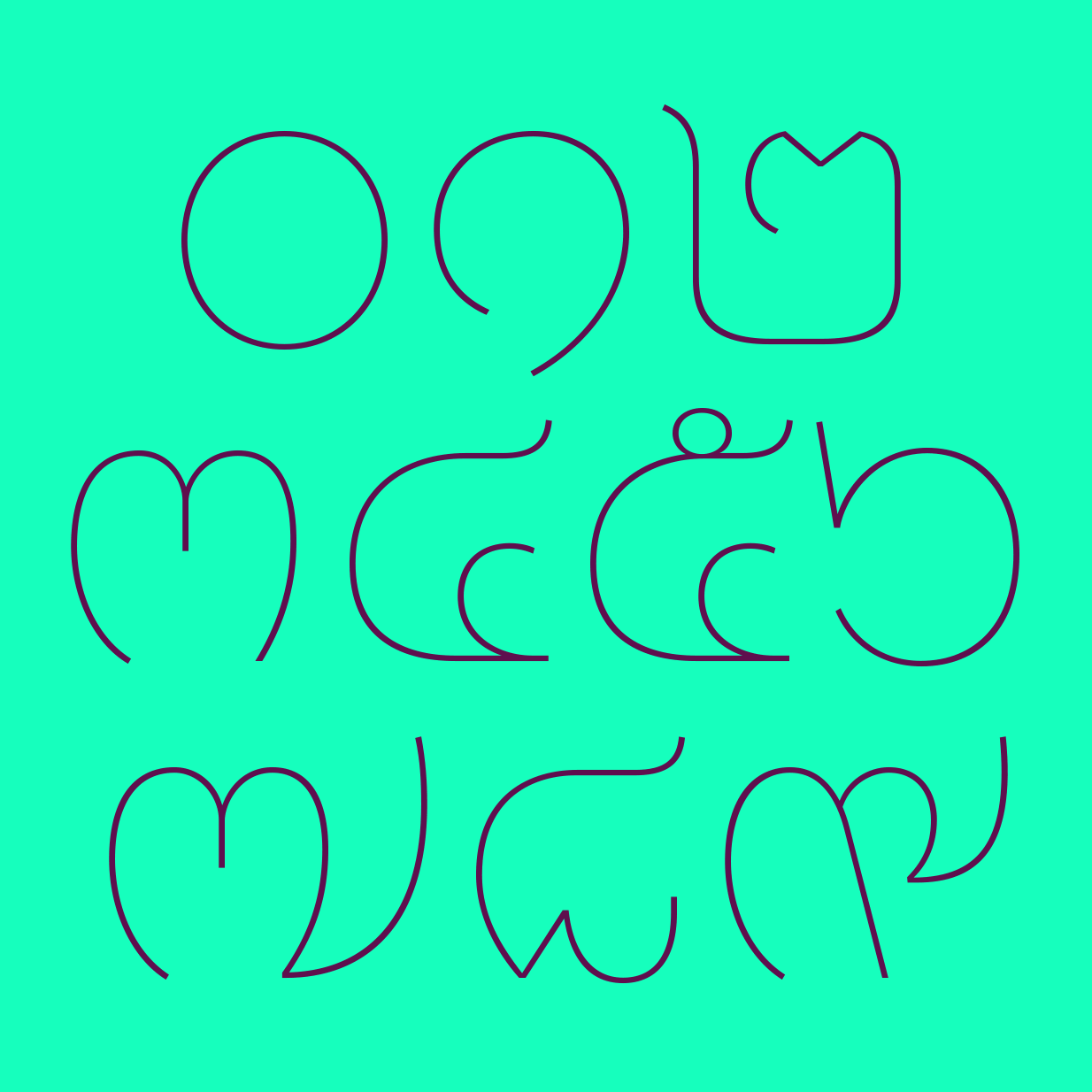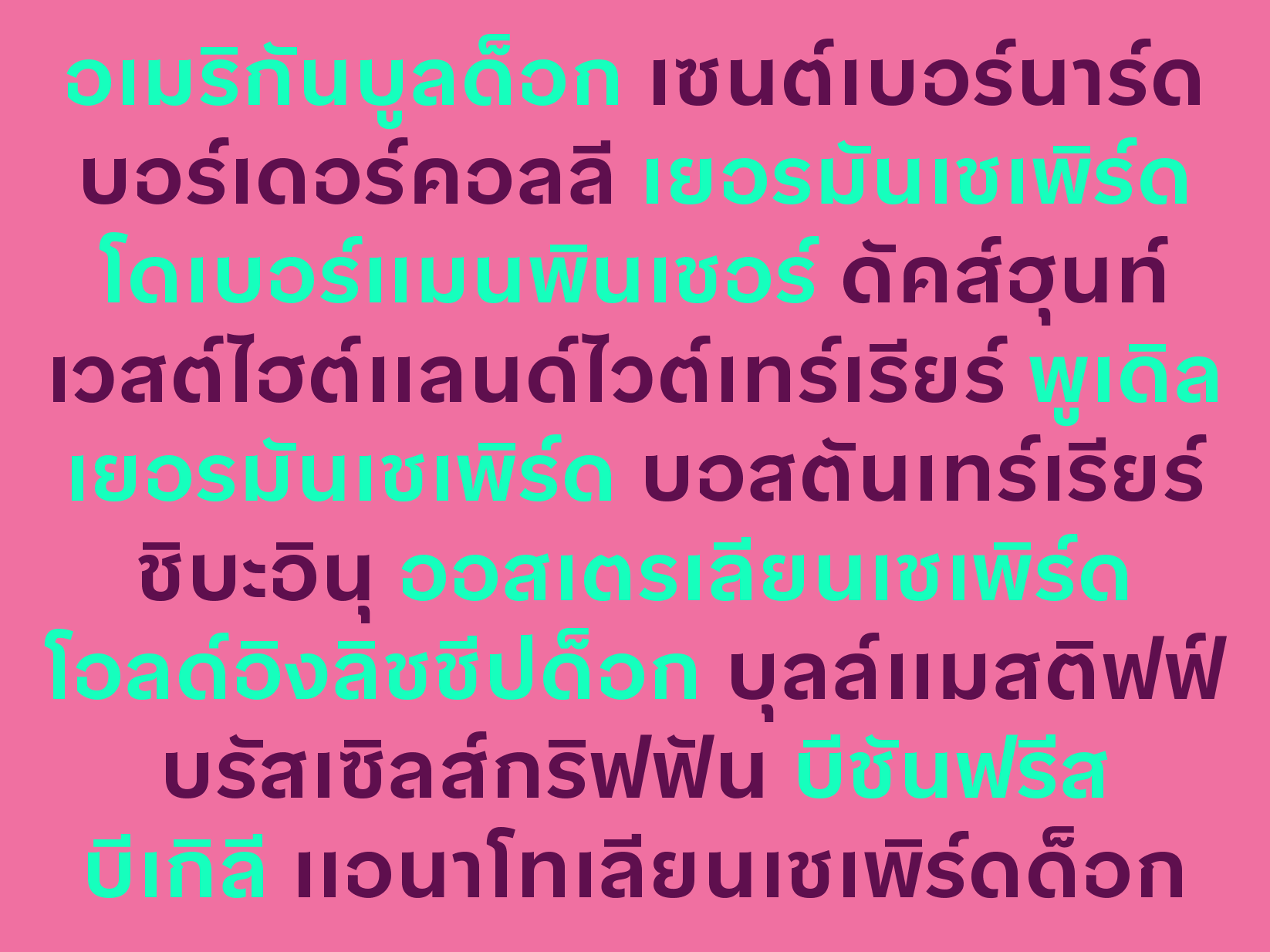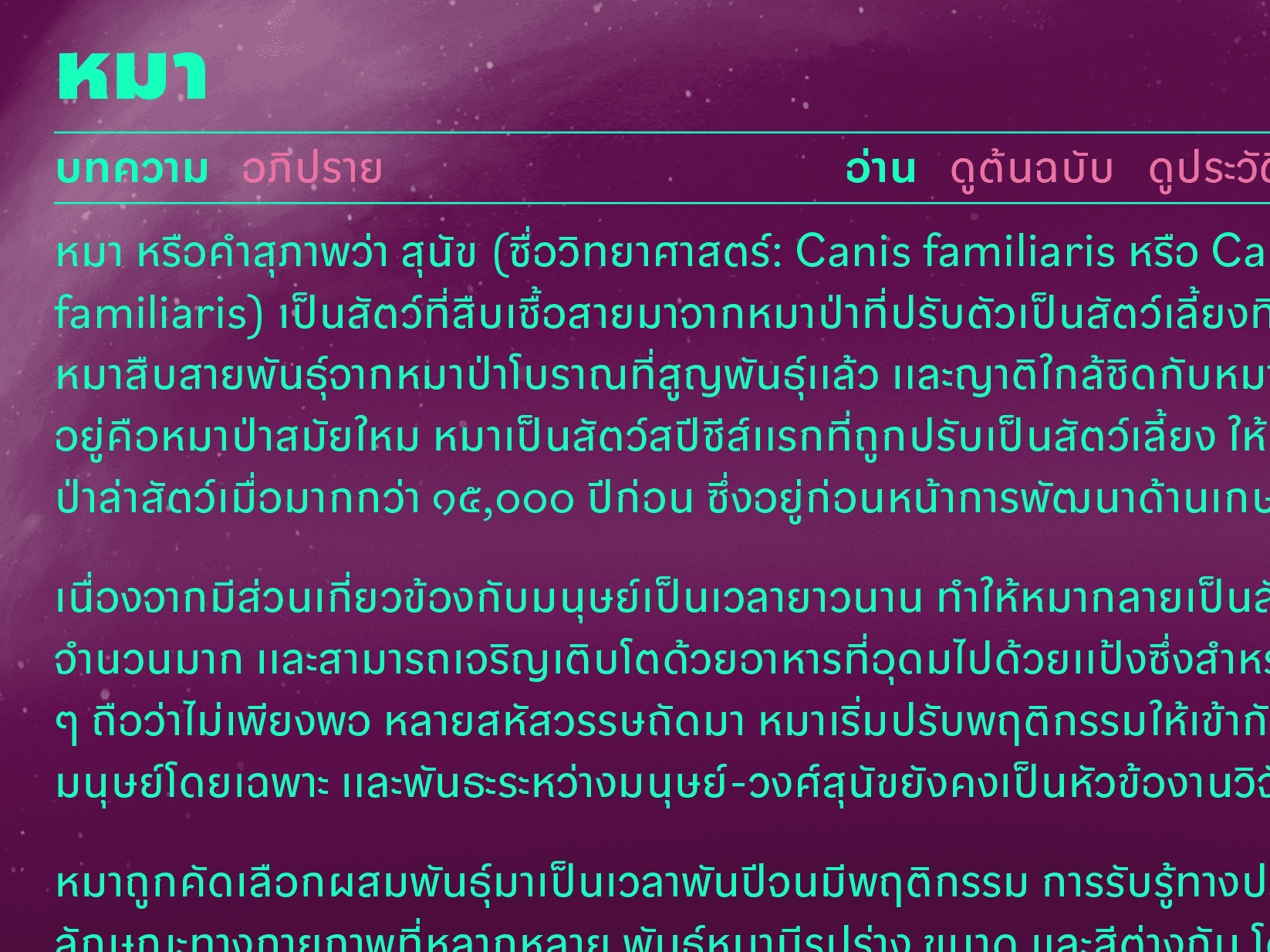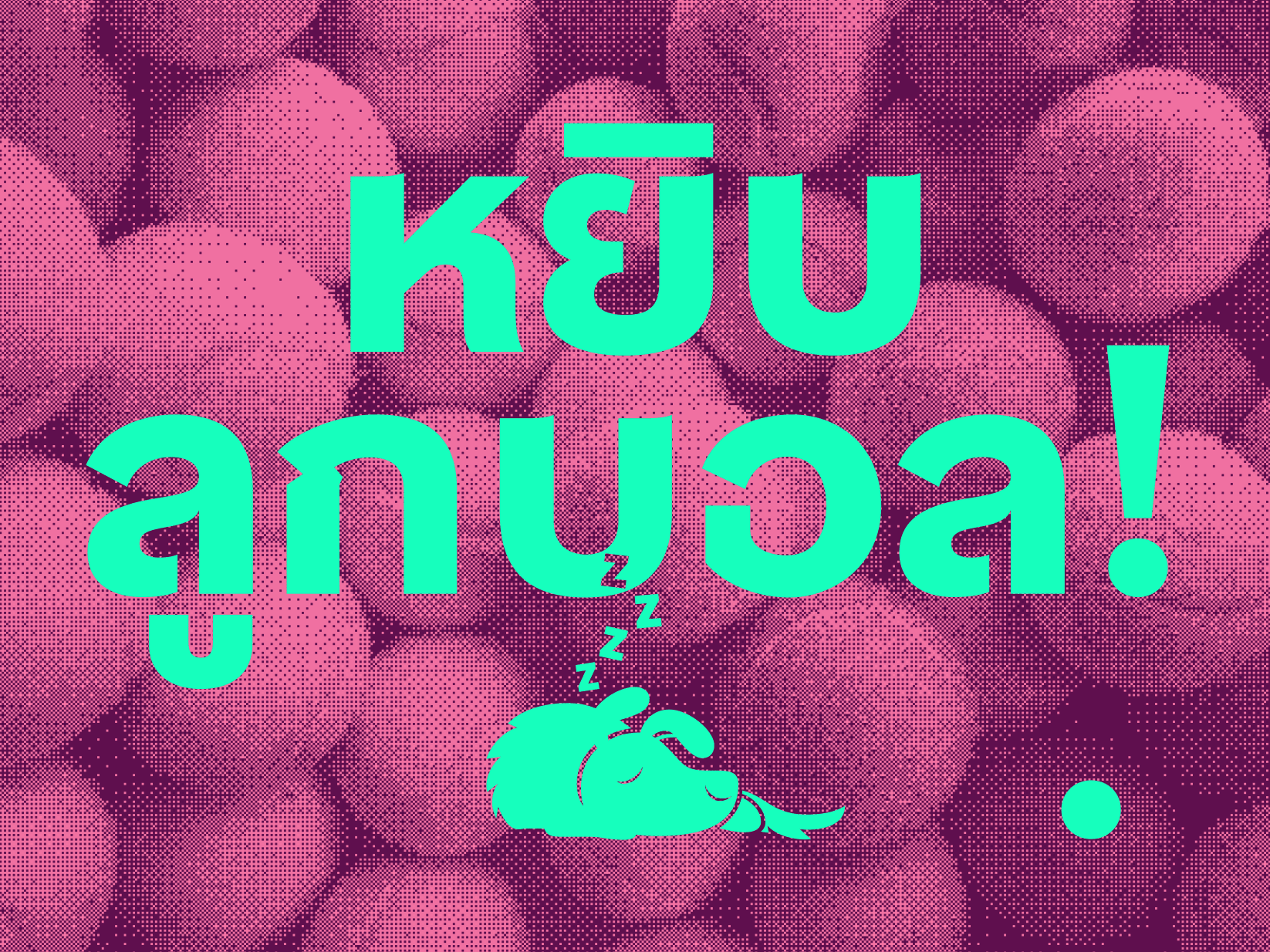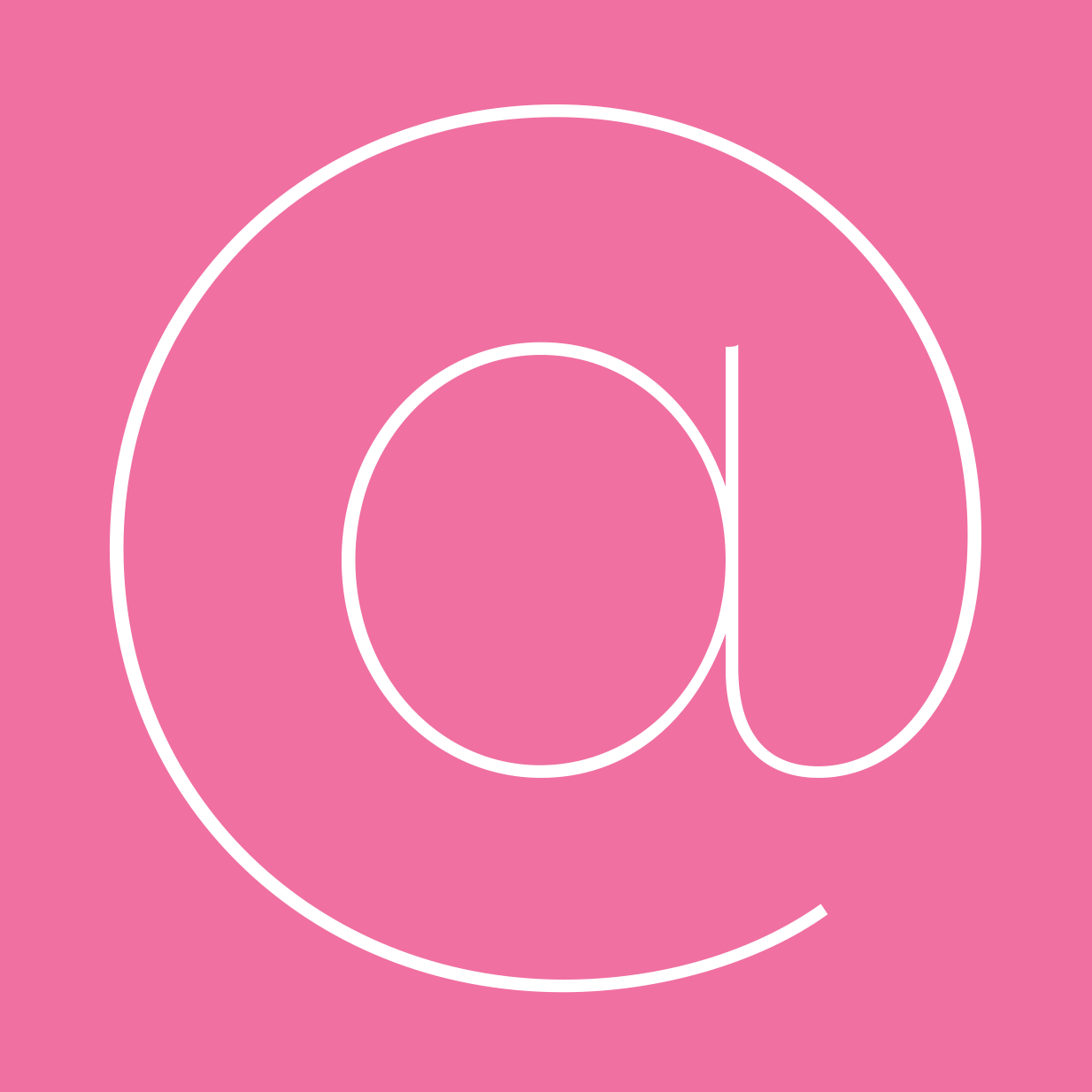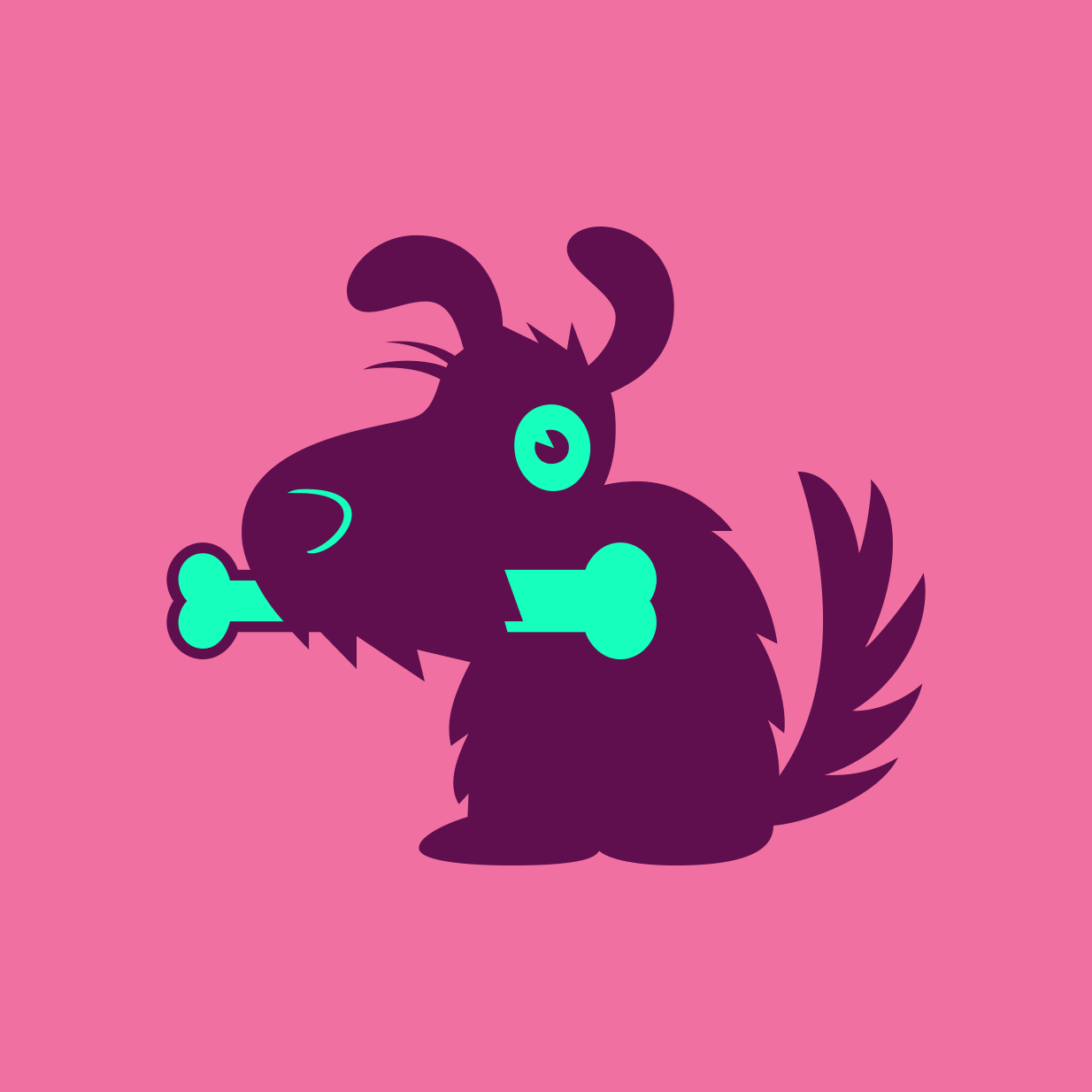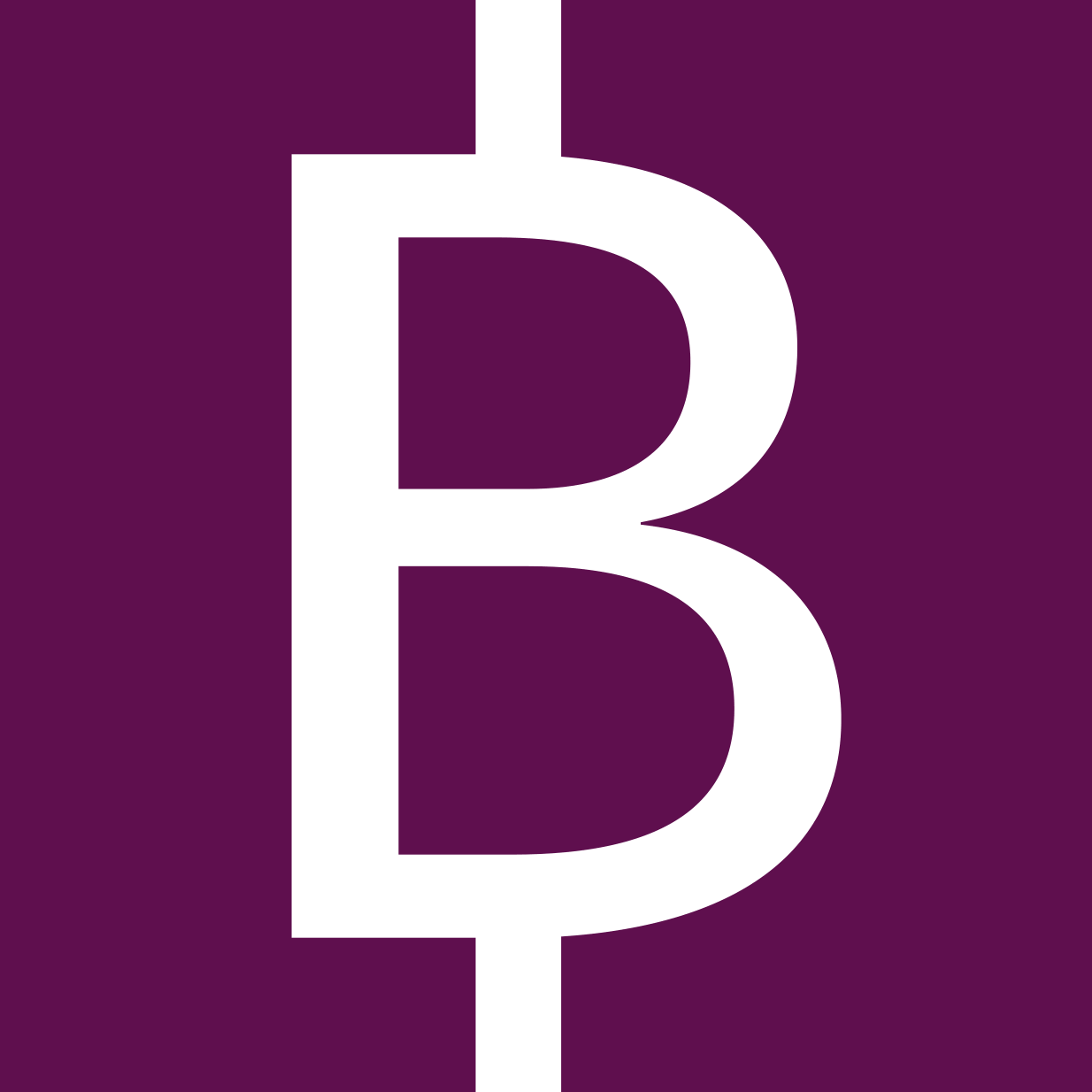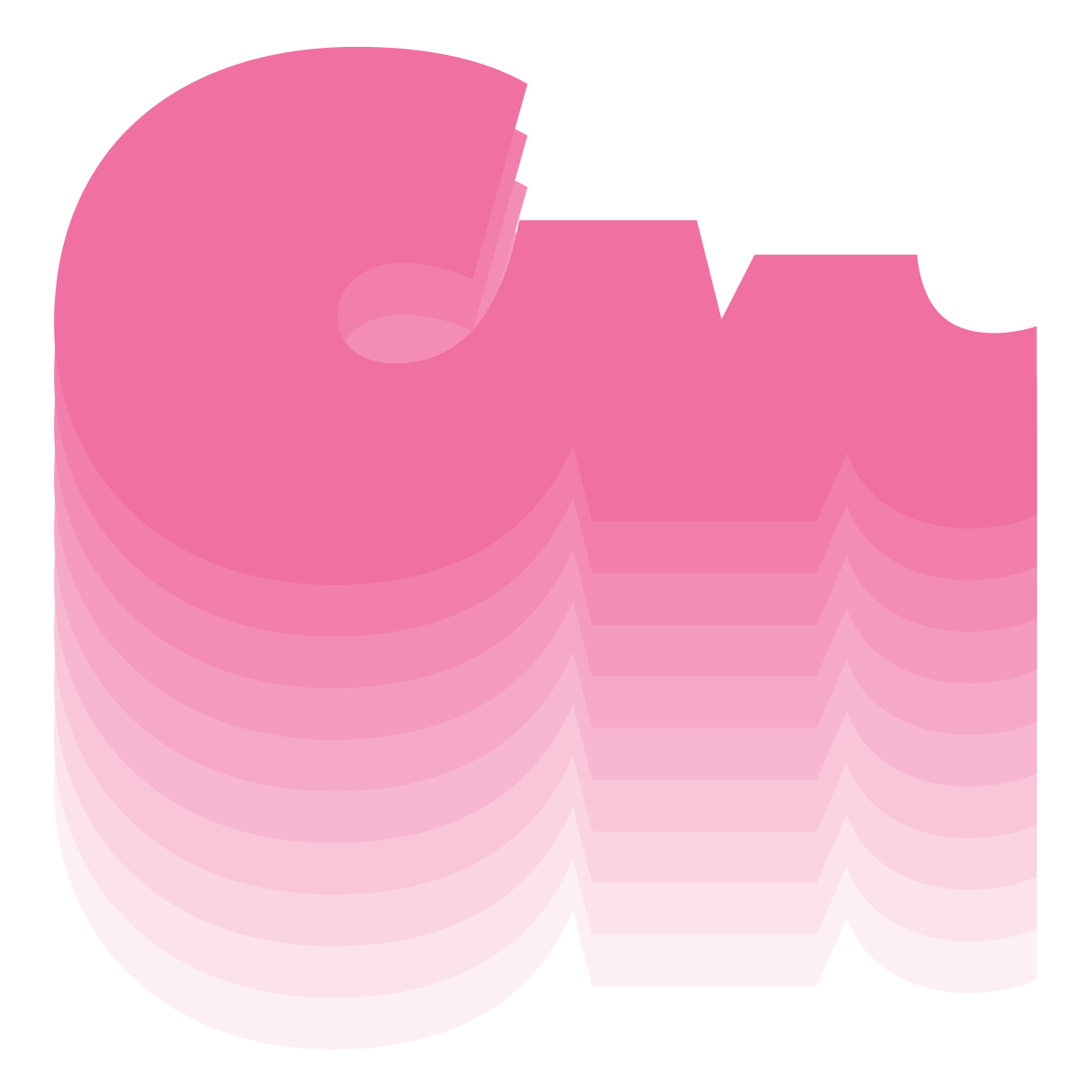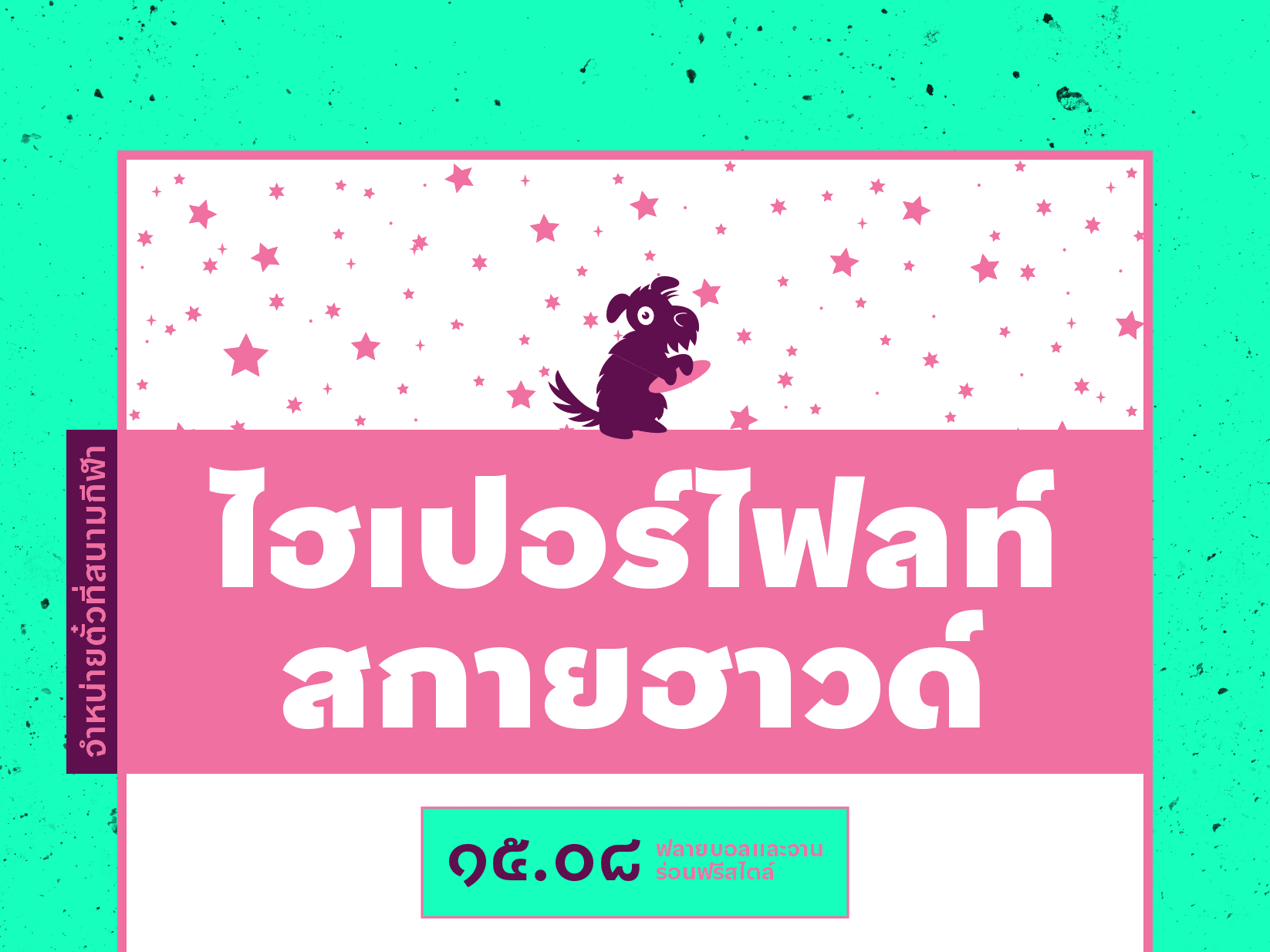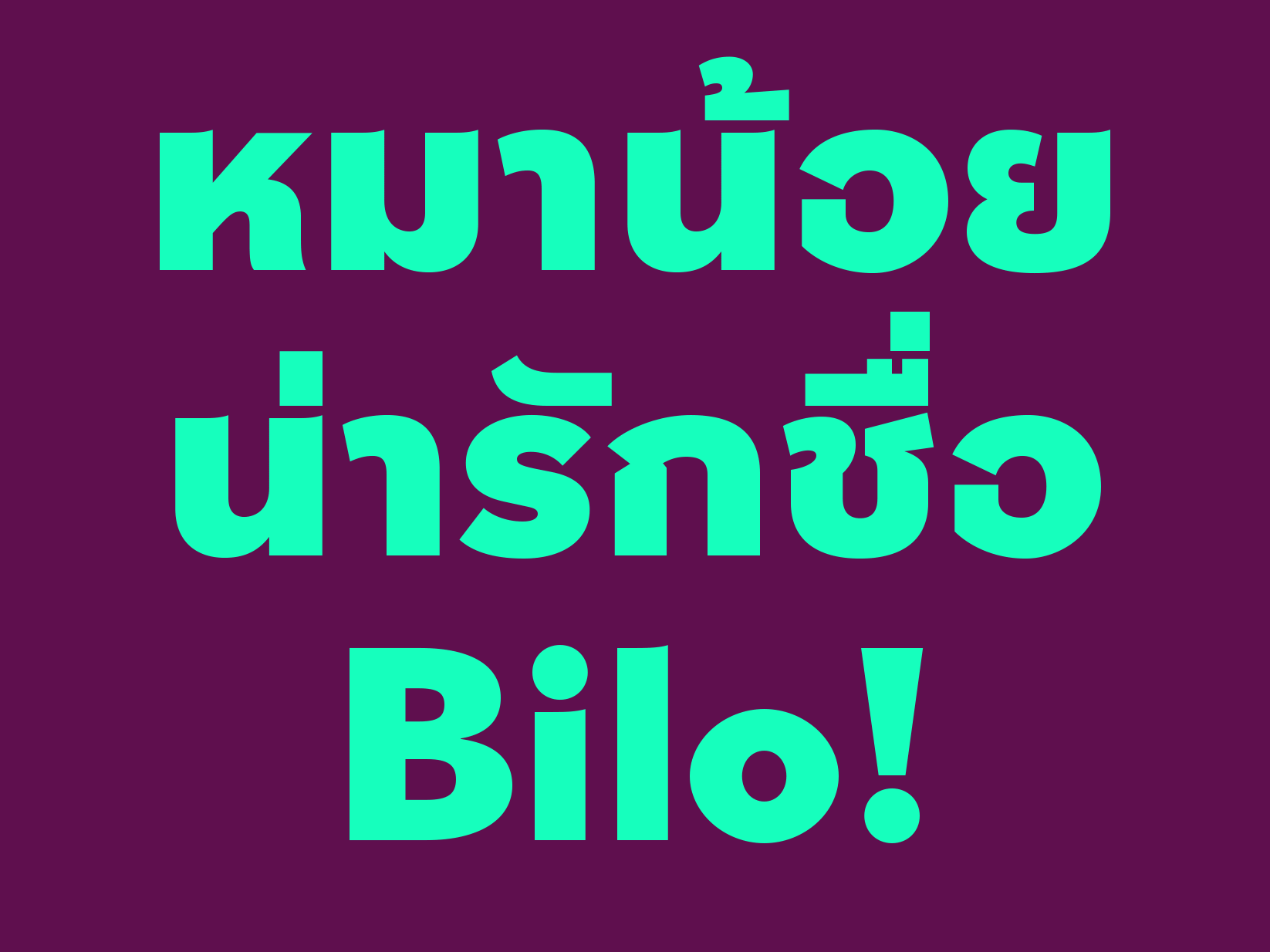
Bilo Thai
Bilo Thai, designed by Promphan ‘Boom’ Suksumek, is the Thai script companion to Pieter van Rosmalen’s Bilo family.
The modern loopless design shares many of the unique details and flavour you’ve come to love in Bilo, for instance the slightly pointy-eared terminals and wide, round shapes – remnants of van Rosmalen’s initial experiment to draw a low-contrast sans-serif version of Bodoni. (For more information on this see the Bilo family page.)
The moderate x-height of Latin Bilo made it easy to match the proportions of the Thai and its need for room for vowels and tone marks above and below the middle (consonant) height. Bilo Thai aims to capture the same playful yet versatile tone as Bilo’s Latin counterpart. The typeface incorporates circular details that complement the native characteristics of Thai letters, such as Dochada, Thothan and Lochula. It also simplifies letterforms to enhance the cursive elements in characters like Oang, as well as Honokhuk and Chochan. Additionally, the vowel Sara-a features a colon-like form in its alternative glyph, reflecting a style prevalent in many Thai hand lettering displays during the late 1950s to 1960s. These features allow Bilo Thai to handle diverse applications, from large to small sizes, without losing its distinctive characteristics.
The family is available in nine finely graded weights. Alternative forms for Dodek, Totao and Ngongu let you choose between a more rounded or angular appearance. And of course, Bilo the dog came along, too! Also each Thai style includes 18 different dog-related icons designed by Dirk Uhlenbrock.